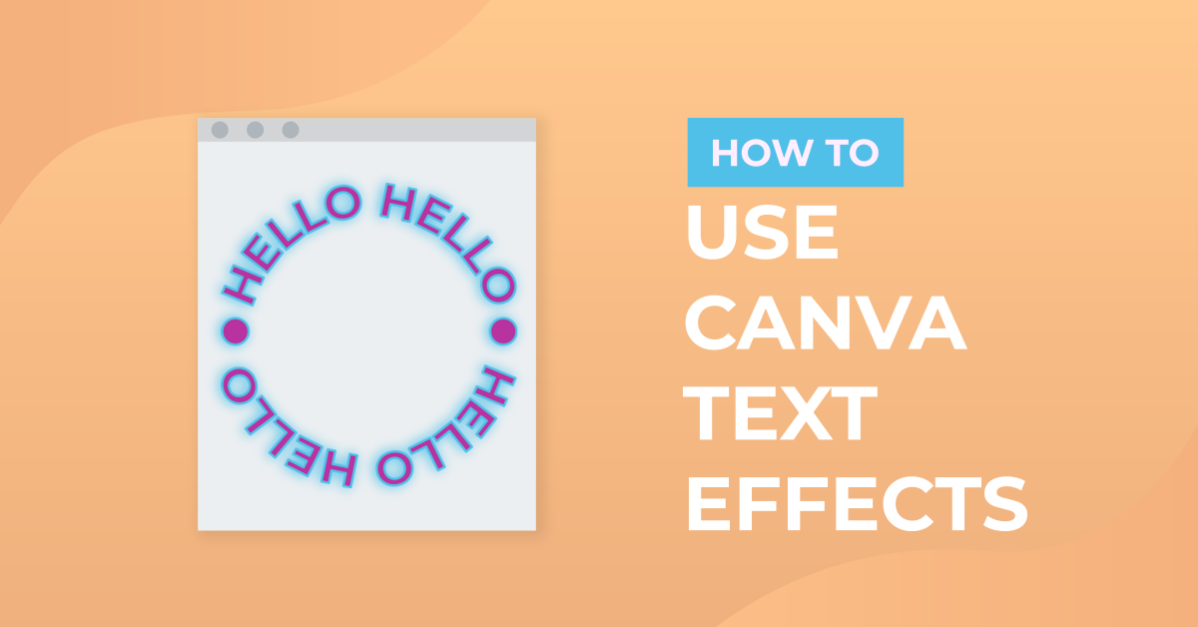
How to Use Canva Text Effects
Discover the many Text Effects in Canva in this step-by-step tutorial!
Canva being an amazing online graphic design tool has finally rolled out its cool text effects feature. Text effects change the appearance of your text from boring to fabulous. All the effects are just in one spot so it’s super easy to try in just one click. In this tutorial, we’re going to show you how to create these8 nifty text effects that you can do in Canva: shadow, lift, hollow, splice, echo, glitch, neon, and curve. Now let’s dive into the tutorial to show you what’s possible.
Step 1: Open a new design space
We're going to use a custom size 500 x 500 px logo size template.
Canva design space
Step 2: Add text
You can add text by clicking the text button> Add a heading or just simply type "T" to quickly add a textbox.
Adding textbox
With the sample text selected/highlighted, start typing your own text. It will automatically change the sample text. You can make the text bigger by dragging the white circle handle out. Change the font by clicking on the font name drop down and scroll through the options. Select the font you'd like to apply to your text.
Edit font
Here, we're going to use a pre-uploaded Serif font from Font Bundles called Shirens. We'll click that font to apply changes to our text.
Shirens font from Font Bundles
Step 3: Apply text effects
To get to the text effects, select your text, click the "Effects" option in the toolbar above. On the left panel, you will see the different effects divided into two categories: style effects and shape effects. We'll try the style effects first. Now let's have fun with these cool text effects. We'll walk you through each style and discuss what each one does.
Apply text effects
Shadow
This effect creates a shadow to your text. There are several ways to adjust the look of the shadow. Pictured are the default settings but you can fine-tune each according to your liking by dragging the control sliders to the left or to the right. Offset can increase or decrease the shadow's distance from the text. Direction can change the direction of the shadow from the text. Blur can sharpen or blur your shadow, while transparency changes the opacity of the shadow. We can also change the shadow's color by clicking on the color tile below and choosing the preferred color from the editor panel on the left.
Shadow text effect
Lift
This effect makes your text appears like it’s being lifted off the page. The shadow’s intensity behind the text is the only control you can change with this effect. You can increase the intensity of the blurred shadow by dragging the slider to the right and decrease it by dragging it to the left.
Lift text effect
Hollow
This effect works best with chunky fonts and not the thin ones because it hollows out your letters and creates an outline for your text. You can adjust the thickness of your outline by sliding the thickness control to the right or to the left.
Hollow text effect
The hollow effect can also let you create a solid outline for your text. To make one, you should start with a solid text. And with it selected, duplicate your text by clicking the 3 dots in the toolbar for more options then click the duplicate button. Change the color of your original text for contrast by clicking the color tile and selecting the color that you want from the left panel to apply the color change.
Outline text
Select your second text (black), click the Effects option then click Hollow from the effects panel on the left. Place the outline text on the top of the solid text.
Outline text
Splice
Our next effect, Splice is the combination of shadow and hollow effect. There are four ways you can adjust the look of your spliced text just by dragging the control slider of each adjustment. You can adjust the thickness of the text’s outline, offset can increase the shadow’s distance from the text outline, you can change the direction of the shadow text behind the outline text and you can also change the color of the shadow text by clicking on the color tile below and choosing the preferred color from the editor panel on the left.
Splice effect
Echo
Echo gives your text a nice layered look by duplicating the original text twice behind it. The ways to customize are offset, direction, and color. Offset, changes the distance of the shadow text from the main text, direction changes the direction of the shadow text behind the main text, and color changes the shadow’s text color. The effect is more visible in thinner fonts than in chunky ones.
Echo text effect in Canva